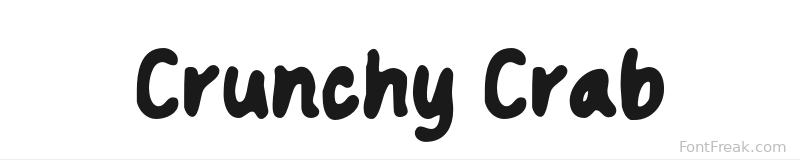
Crunchy Crab
About Crunchy Crab
Crunchy Crab, designed by MJType in 2023, is a delightful display font that encapsulates a playful and whimsical aesthetic. This font is categorized as a decorative typeface, characterized by its rounded, chunky letterforms that evoke a sense of fun and approachability. The stroke weight is consistent throughout, providing a uniform appearance, while the slightly exaggerated curves and contours give it an inviting, friendly vibe. The spacing is well-balanced, ensuring readability while maintaining its charming character.
Perfect for a variety of creative projects, the Crunchy Crab font excels in applications that benefit from a lighthearted touch. It is particularly well-suited for children's book covers, adding a playful element that can capture the attention of young readers. Additionally, it works wonderfully for restaurant menus, especially for establishments with a casual or family-friendly atmosphere, where the font can enhance the dining experience. Event planners will find it ideal for party invitations, where its fun style can set the tone for celebrations. Furthermore, graphic designers can utilize Crunchy Crab for social media graphics, making posts more engaging with its unique flair.
What sets the Crunchy Crab font apart is its ability to blend playfulness with versatility. This delightful typeface can elevate various projects, making it a go-to choice for those seeking to create memorable designs. Don't miss out on the opportunity to enhance your creative toolkit with the Crunchy Crab font free download, and let your projects shine with its unique charm.